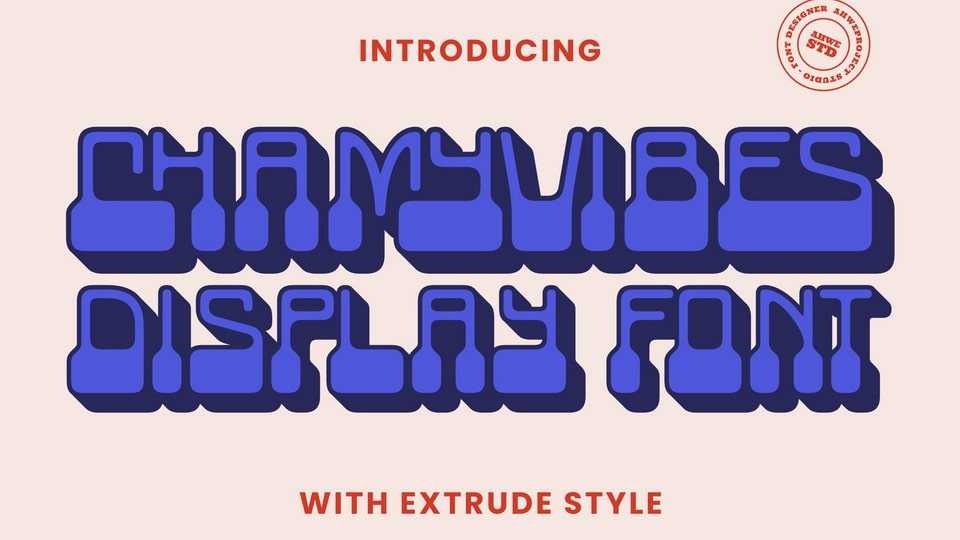
Download Chamyvibes font, a unique display typeface with aesthetic looks. This font is perfect for storybooks or child themes that need a standout font.